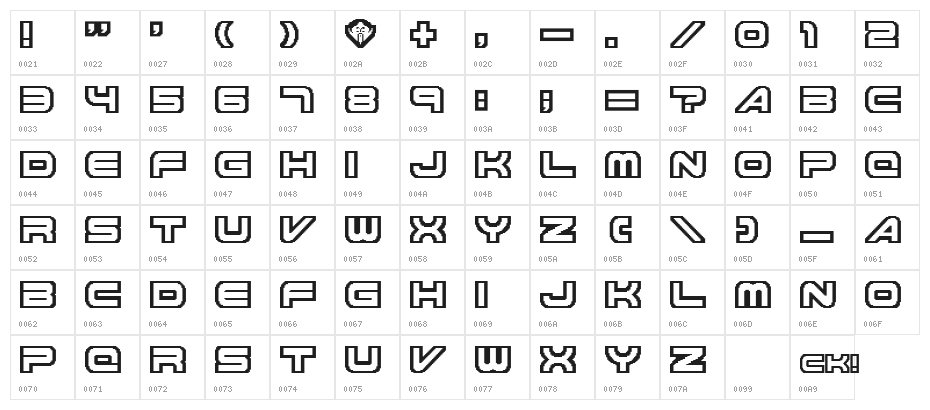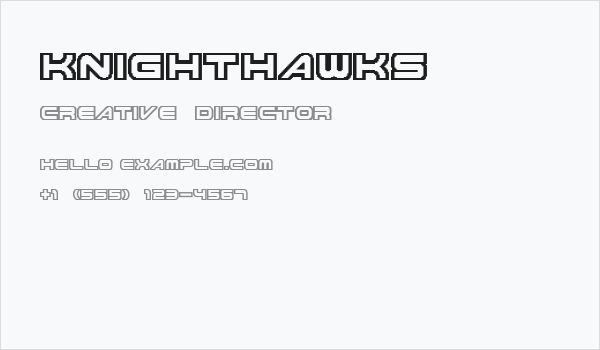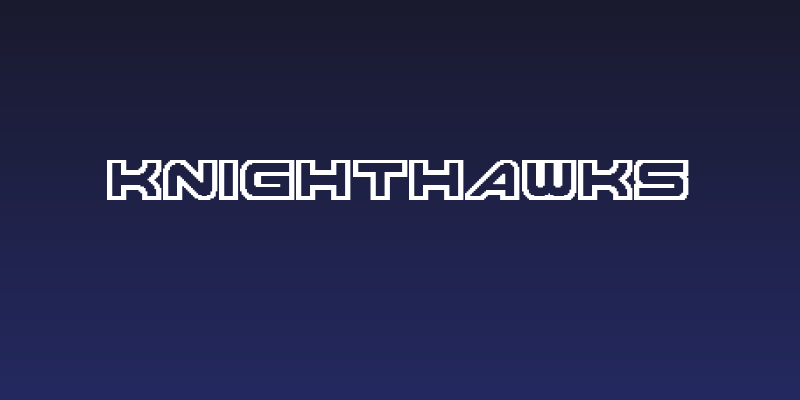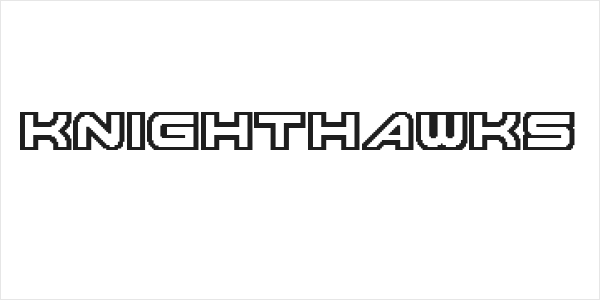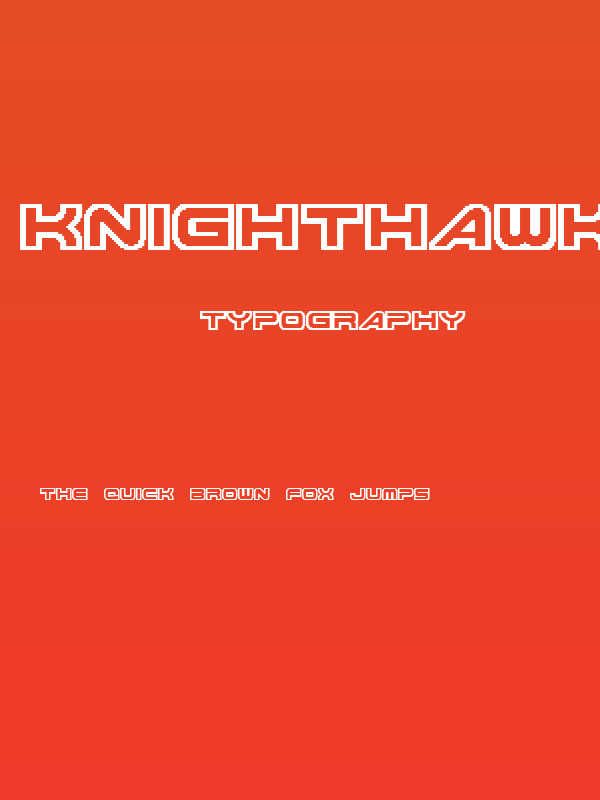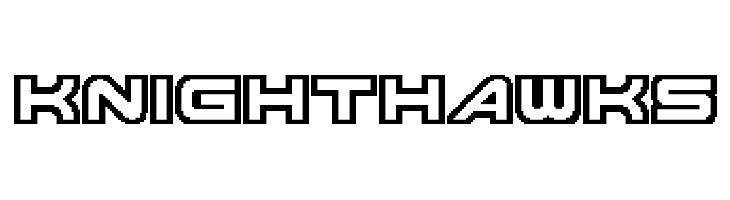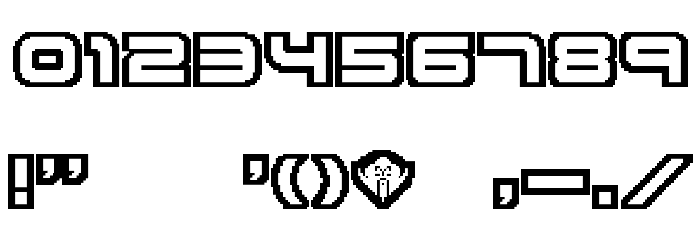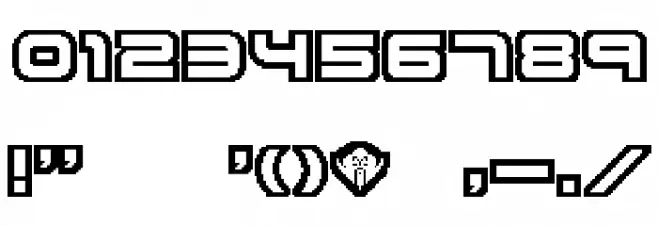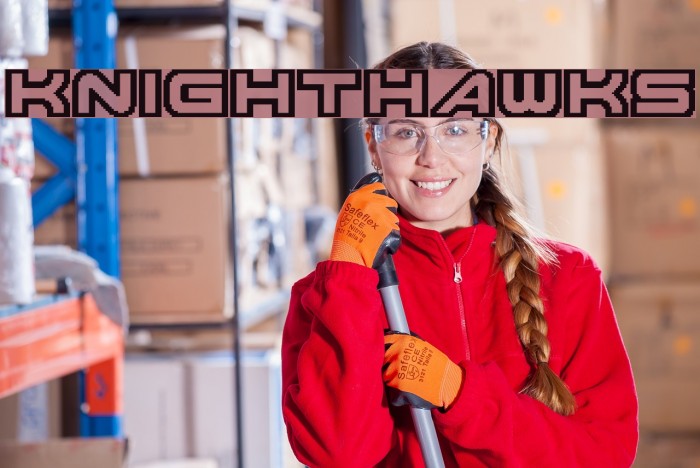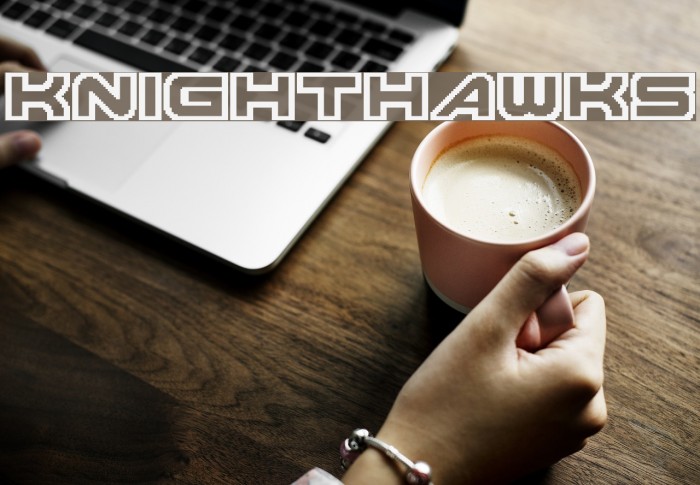
Knighthawks Font
Knighthawks Description
This font features a bold, geometric design with a futuristic and tech-inspired aesthetic. The characters are outlined, creating a hollow effect that adds a sense of depth and dimension. The angular shapes and sharp edges give it a dynamic and modern look, making it ideal for projects that require a strong visual impact. The uppercase letters are consistent in height, while the numbers and special characters maintain the same bold outline style. This font is perfect for creating eye-catching headlines, logos, and branding materials that need a contemporary and edgy feel.
| Proposed Projects | Ideal for tech branding, futuristic posters, video game graphics, and sci-fi themed projects. |